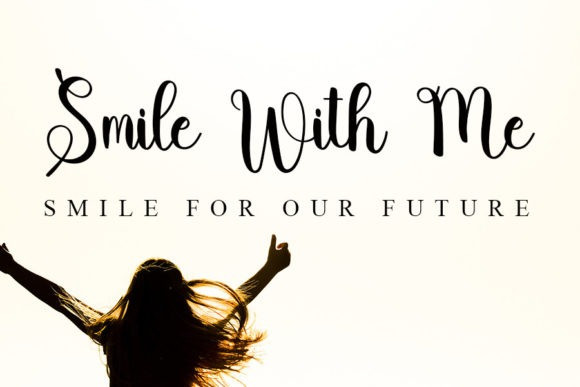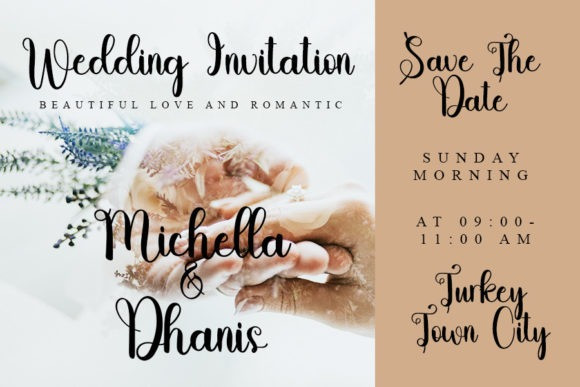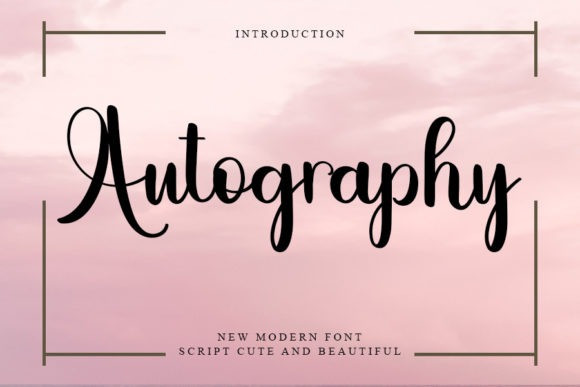
Autography Font
Autography Script Font is a chic, refined script font that emanates sophistication and elegance. Its stylish alternates and ligatures make this font the perfect match for any project.